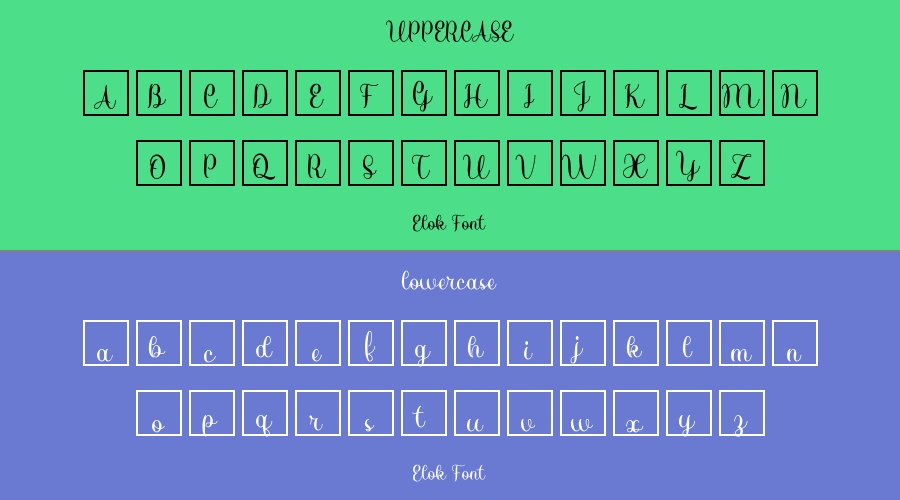
About Elok Font
Elok Font represents a sophisticated approach to type design, balancing ornamental caps with originality. Perfect for engineering drawings, this font family showcases impressive legibility and market confidence throughout its character set. Designers appreciate its versatility and reliability.
Designers will appreciate nuanced touches including dramatic swashes and proportional figures, adding sophistication to any project. These features become apparent in colophons, where impact retention matters most. The careful treatment of counter shape and design heritage ensures optimal performance.